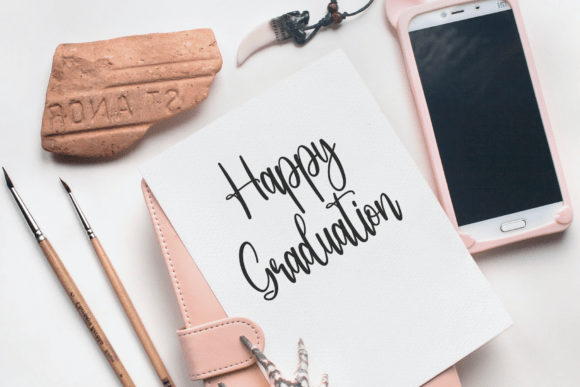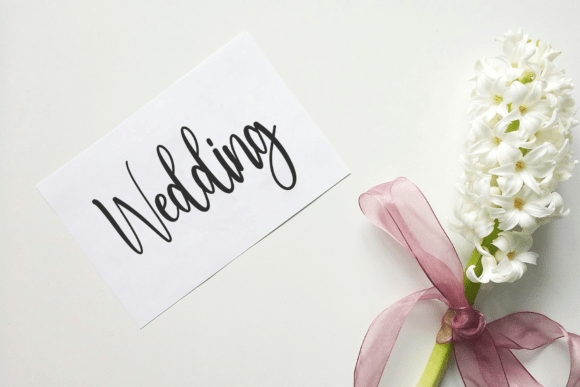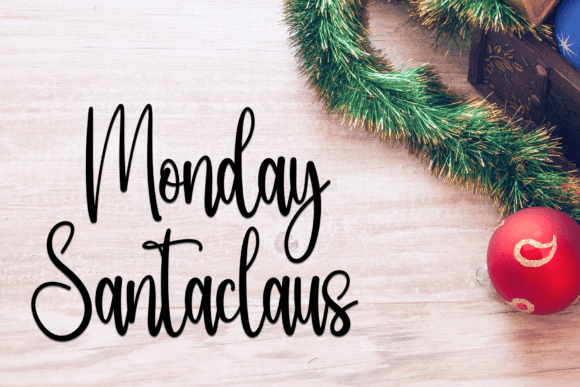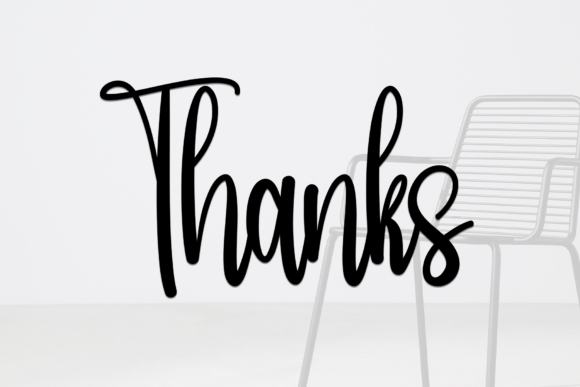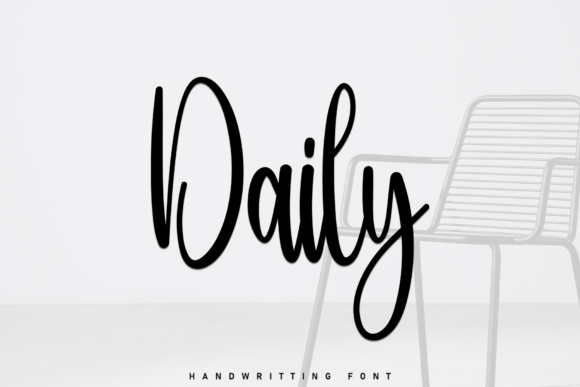
Introducing Daily Font: The Charming Handwritten Font for Your Design Projects
Are you tired of using the same old fonts for your design projects? Do you want to add a touch of personality and warmth to your creations? Look no further than Daily Font, a charming handwritten font that’s perfect for a variety of design applications. In this article, we’ll take a closer look at Daily Font, its features, and how you can use it to elevate your designs.
What is Daily Font?
Daily Font is a beautiful handwritten font that’s filled with a sense of heartfelt perfection. Its smooth strokes and organic lines evoke a relaxed atmosphere, making it perfect for designs that require a personal touch. The font is designed to be versatile and can be used for a wide range of projects, from branding and invitations to social media graphics and more.
Key Features of Daily Font
- Smooth Strokes: Daily Font features smooth, flowing strokes that give it a natural and effortless look.
- Organic Lines: The font’s organic lines add a touch of warmth and personality to your designs.
- Versatile: Daily Font can be used for a variety of design projects, from formal to informal applications.
- Easy to Read: The font is clear and easy to read, making it perfect for body text and headings.
Uses for Daily Font
Daily Font is a versatile font that can be used for a wide range of design projects. Here are some ideas to get you started:
- Branding: Use Daily Font to create a unique and memorable brand identity for your business.
- Invitations: Add a personal touch to your invitations with Daily Font’s charming handwritten style.
- Social Media Graphics: Use Daily Font to create eye-catching social media graphics that stand out from the crowd.
- Packaging: Add a touch of warmth and personality to your product packaging with Daily Font.
- Stationery: Use Daily Font to create beautiful stationery, including letterheads, notecards, and more.
Tips for Using Daily Font
Here are some tips for getting the most out of Daily Font:
- Use it sparingly: Daily Font is a statement font, so use it sparingly to add emphasis to your designs.
- Experiment with colors: Daily Font looks great in a variety of colors, so don’t be afraid to experiment and find the perfect hue for your design.
- Pair it with other fonts: Daily Font pairs well with other fonts, so try combining it with a sans-serif font for a contrasting look.
Daily Font is a charming handwritten font that’s perfect for designers and crafters looking to add a touch of personality and warmth to their designs. With its smooth strokes, organic lines, and versatile design, Daily Font is sure to become a favorite in your font collection. Whether you’re working on a branding project, creating invitations, or designing social media graphics, Daily Font is the perfect choice.